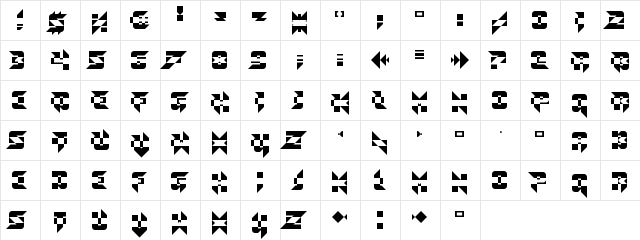
Toe the Line Regular
| Designer | NAL |
Design Context for Toe the Line Typeface
Toe the Line is a composed and adaptable typeface that performs quietly and consistently across a wide range of design contexts.